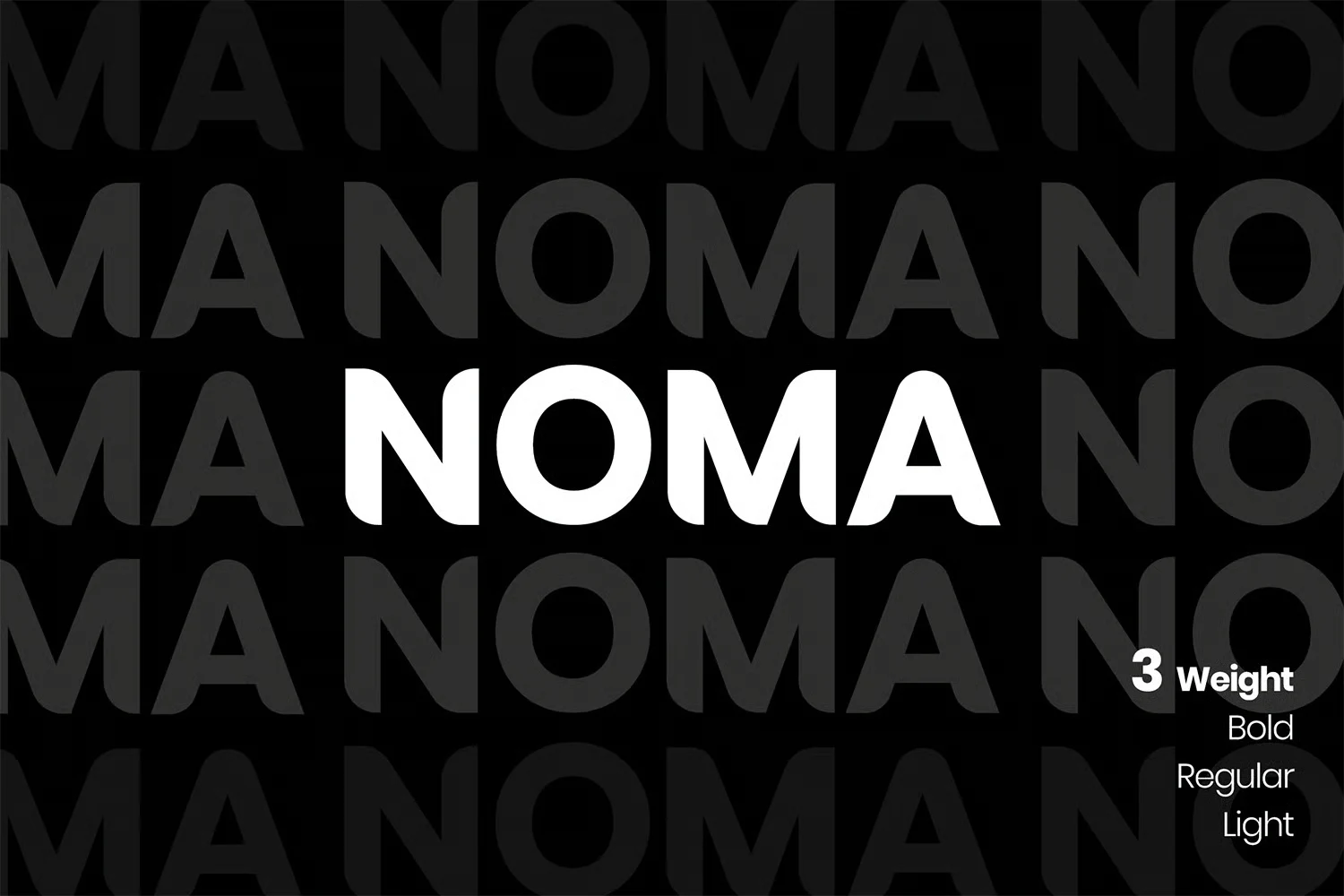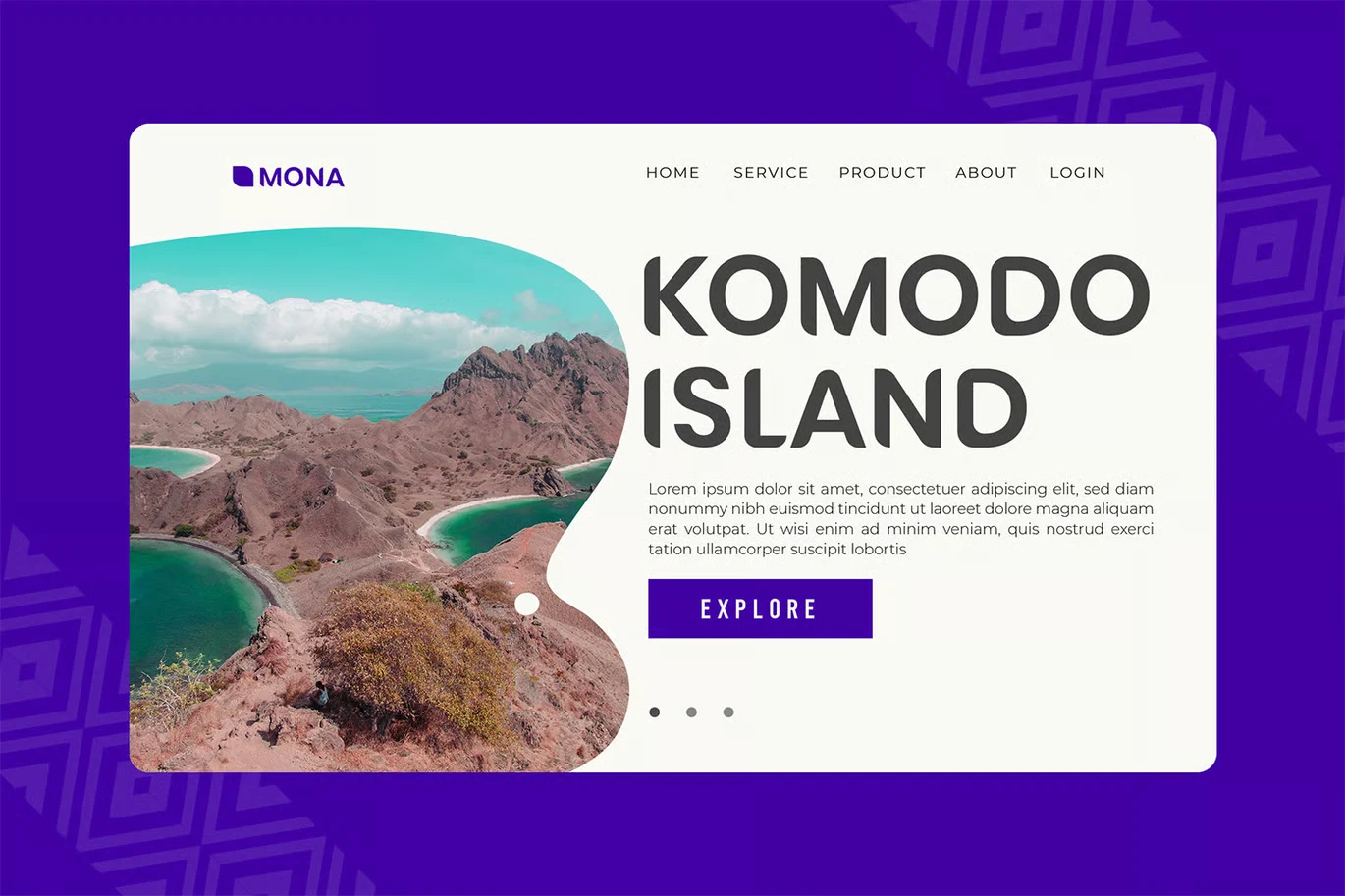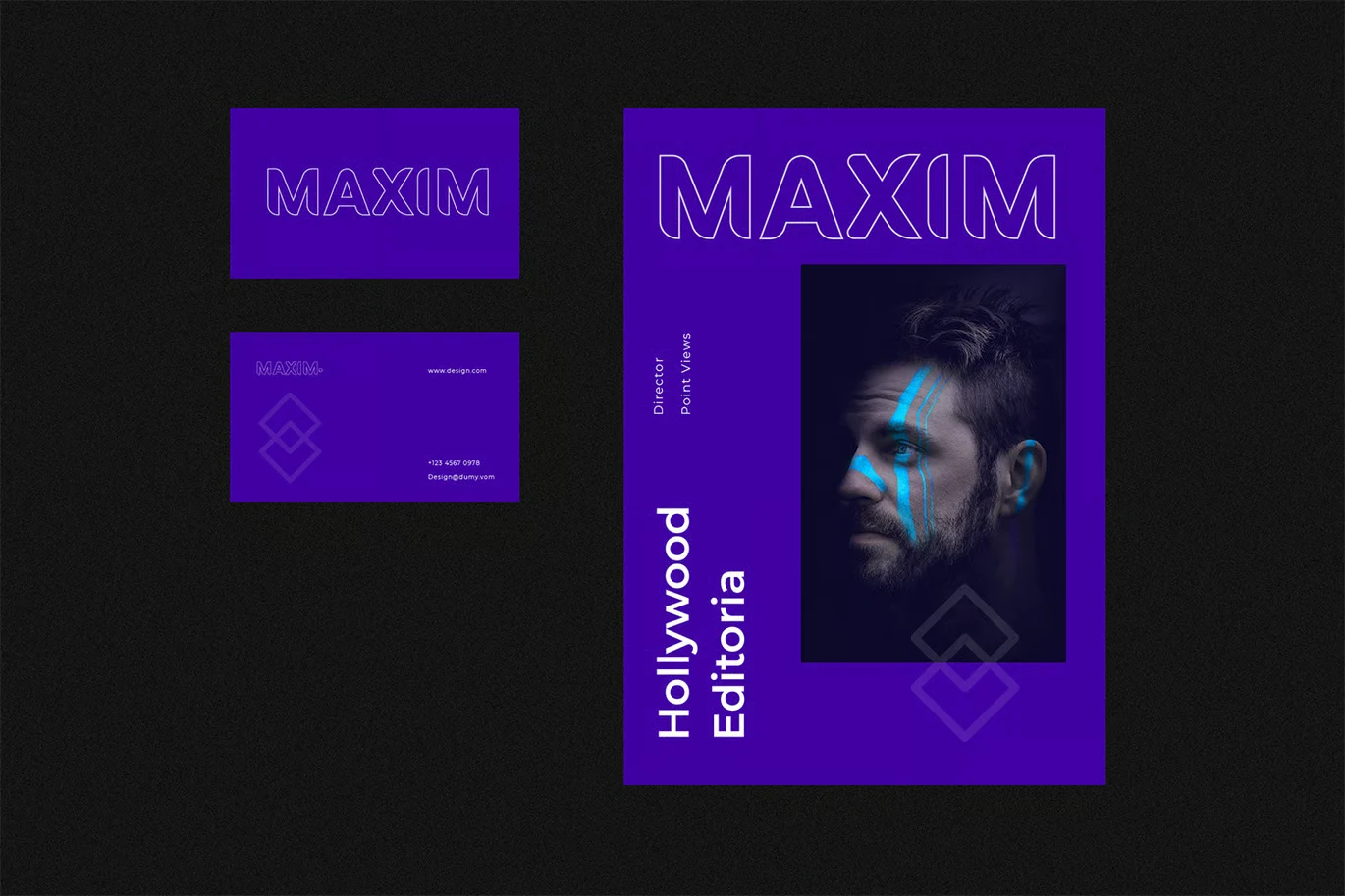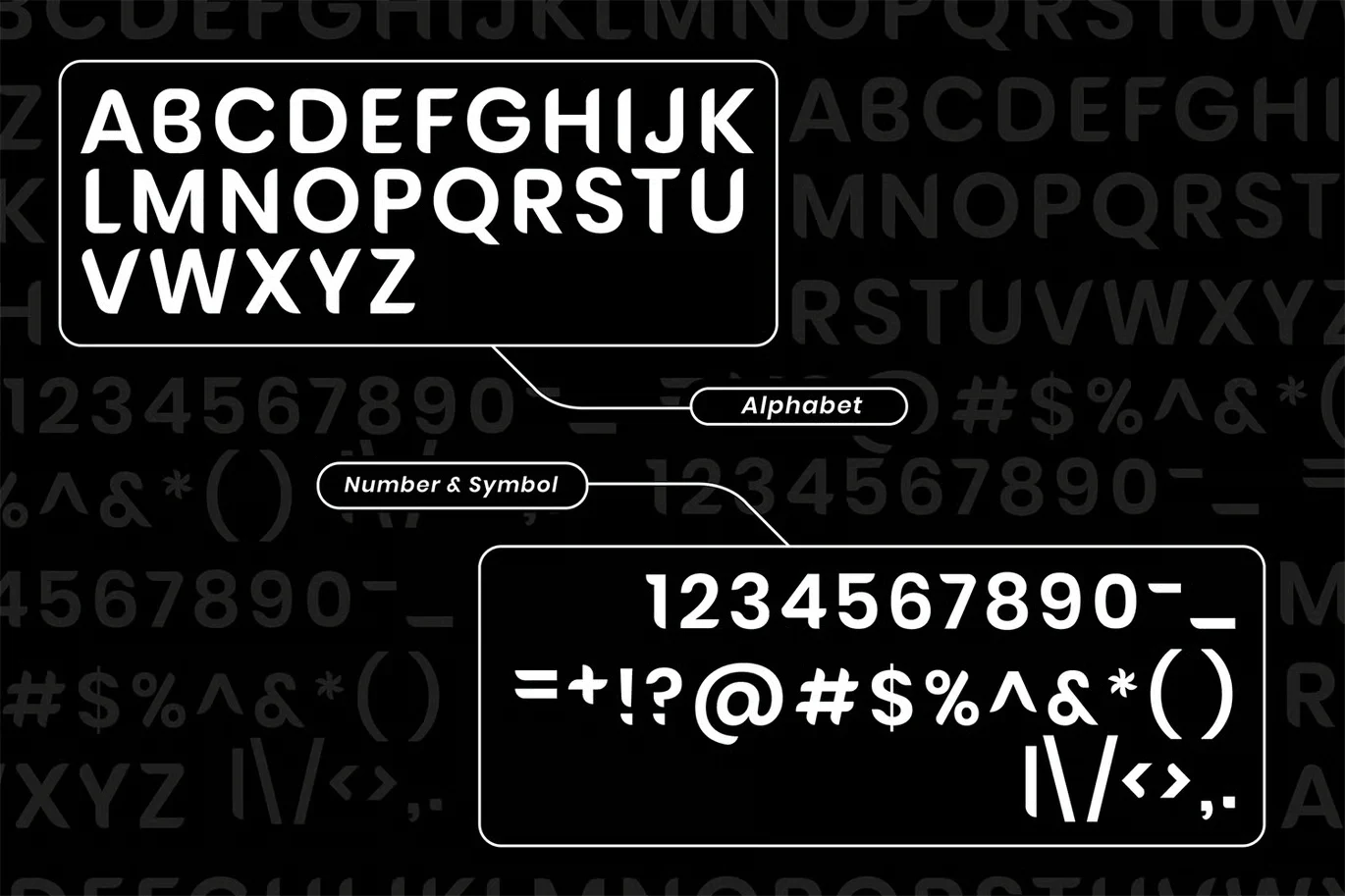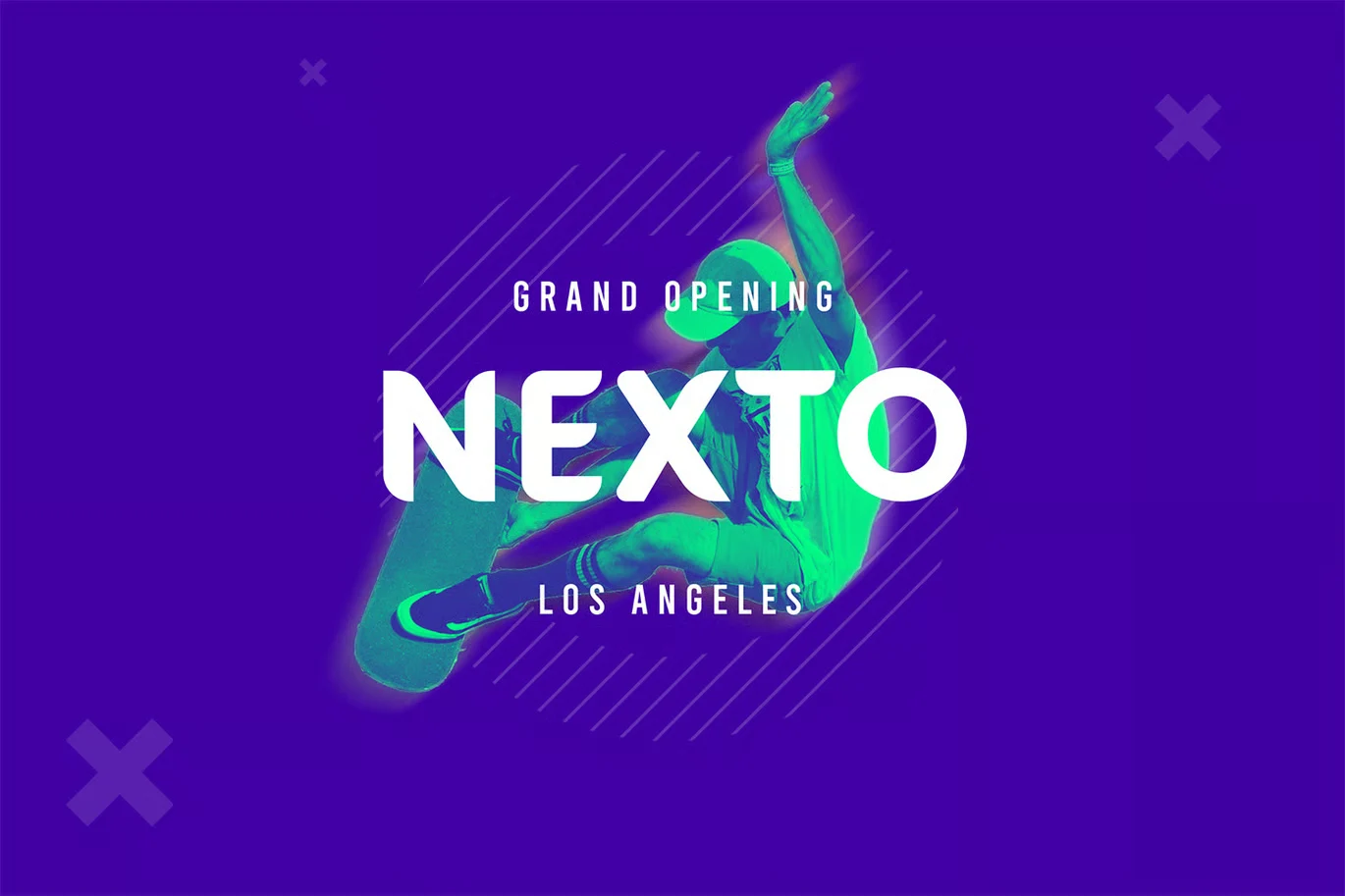
NOMA Font
About NOMA Font
I’m a typographer and graphic designer, and I spend a lot of time exploring new fonts for branding work. Recently, I was working on a bold visual identity for a digital brand and wanted something clean, strong, but with a little personality. That’s when I came across the NOMA Font. I found it while browsing through YouWorkForThem. The font immediately stood out for its balance of boldness and playful style. I used it for a logo and a hero section header on a website. It worked great and gave the design a strong voice without being too loud. That’s why I’m sharing this review.
What is NOMA Font?
NOMA Font is a bold, all-caps sans serif typeface with smooth curves and clean geometry. It blends a modern look with playful energy, making it perfect for branding, digital design, and large-scale print layouts. The font feels both strong and friendly at the same time. This makes it useful in a wide range of projects like magazines, books, covers, and film posters.
The team behind NOMA focused on character detail. Each letterform has a unique feel that fits both commercial and personal design work. It also supports multiple platforms and formats, making it versatile for designers who switch between print and digital often.
Features of the NOMA Font
NOMA includes three font weights, all in uppercase. This gives you enough flexibility to create visual contrast while keeping a consistent look. The style is clean but with subtle character in each stroke. It’s modern and geometric, but not stiff. That soft curve on the side of each letter brings in a playful tone.
It comes with full numeral support and includes punctuation and accented characters. That means you can use it in international projects without missing key symbols. Every file is easy to access on desktop or app environments. Whether you’re using Adobe tools or working in Canva or Figma, setup is fast.
From logo design to ebooks, NOMA adapts quickly. The clean style fits digital needs, while the bold structure makes it stand out in printed materials. You can discover NOMA in curated font libraries like YouWorkForThem and explore it with instant previews.
Where can you use this font?
The NOMA Font is ideal for bold branding projects. It’s especially great for headers, logos, and web design where clarity and impact are key. If you’re creating a magazine cover, film poster, or launching a product website, NOMA gives your typography a clean and memorable look.
It works well in mobile and desktop layouts. The typeface maintains readability across screen sizes and still holds its bold character in print. Use it in apps, ebooks, or editorial designs that need to make a statement with a modern tone. It fits well with minimal layouts but also stands up when paired with complex graphic systems.
Because it’s a sans-serif with smooth lines, it fits into both contemporary and classic design styles. It’s perfect for brands that want a bold voice without feeling aggressive. The playful curves help make your text feel approachable while still strong. It also pairs well with other fonts, including script or serif options, depending on the tone you want.
If you want something unique, bold, and flexible for commercial or personal use, NOMA is a great fit.